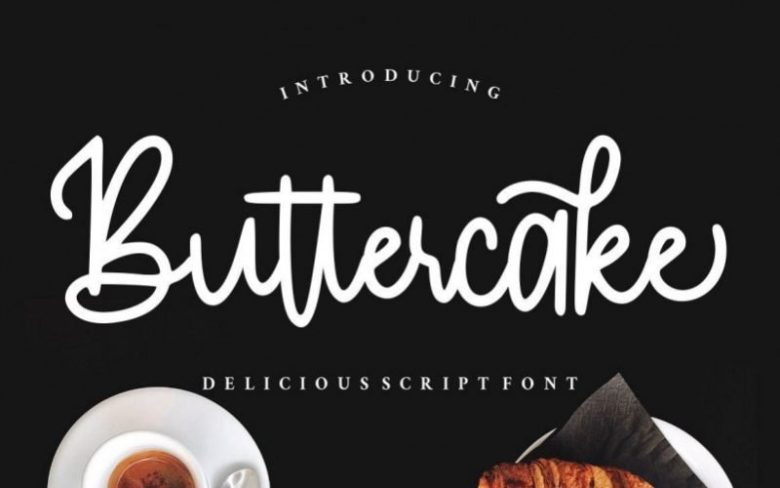
Buttercake Handwritten Font
Buttercake born from bold and fun style fonts. With many differenst swashes you need for the great work ever. That’s available on other file from letter A-Z and a-z.